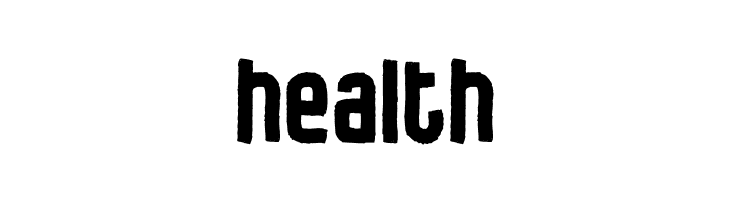
A versatile set of arrow designs with varied styles and directions.
A diverse collection of uniquely styled arrows for versatile design use.
A bold, Gothic-inspired font with a modern yet classic appeal.
A bold, hand-drawn font with a rough, textured, and angular style.
An ornate, decorative font inspired by the Art Nouveau style, featuring intricate curves and details.
A bold, decorative font with sharp, angular edges and high contrast strokes.
A flowing, cursive script font with elegant, connected letters.
A playful, artistic handwritten font with dynamic strokes.
A decorative, distressed font with jagged edges and an organic, hand-drawn style.
A bold, hand-drawn font with a rustic and organic feel.